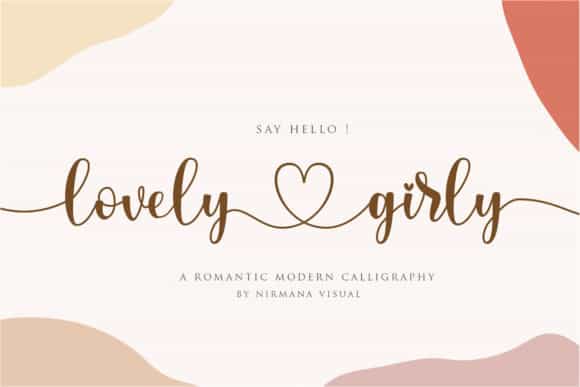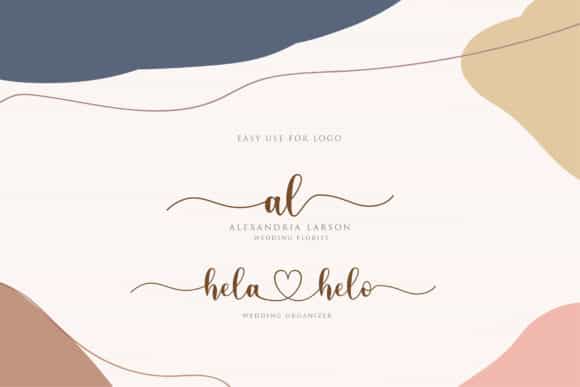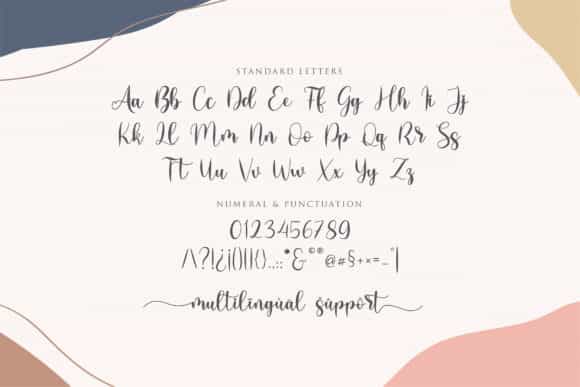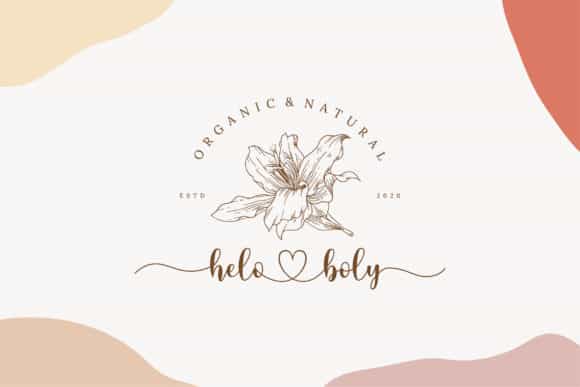
Lovely Girly is modern and trendy calligraphy font with a cute and pretty touch to it. It is used for many purposes. For example, titles, signatures, logos wedding invitations Letterhead, signage labels posters, newsletters badges, etc.